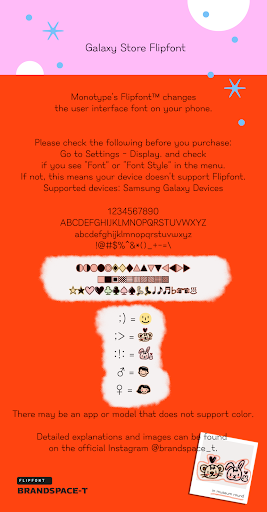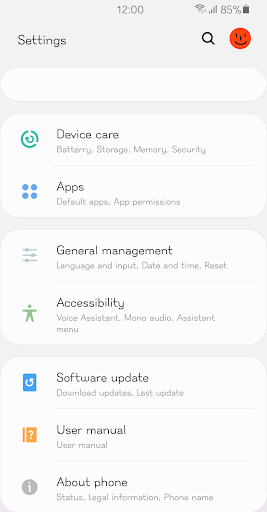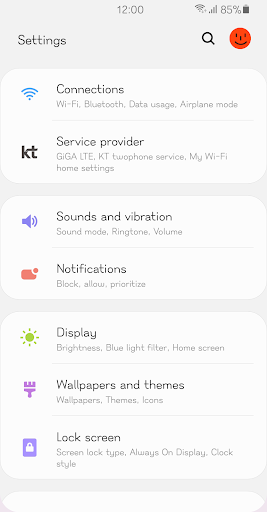
BSTMuseumRound
This typeface is a museum concept that stands out in a modern space with unfilled flexibility and sleek and sophisticated works. Through the fusion of curves and straight lines of Hangul characters, letters shine as objects in one space, and clean screens and readability reduce eye fatigue.
+ :!: "2023 Victory Rabbit" by Dingbet!
+ ;) "2022 Heart Tiger" by Dingbet!
+ ;> Brandspace-t point Dingbet, pretty smile!